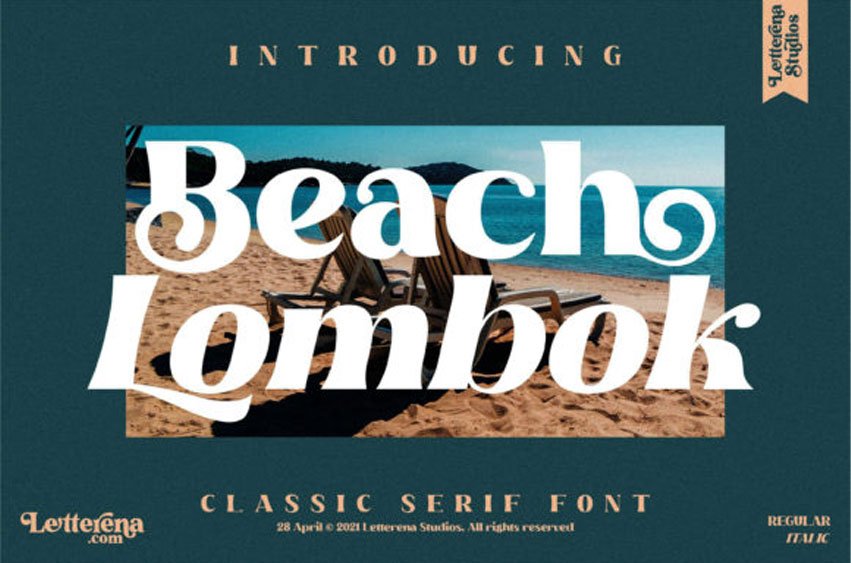
Beach Lombok Font is a cool, thick lettered and classic serif font.
It looks beautiful on a variety of designs requiring a personalized style, such as wedding invitations, thank you cards, weddings, greeting cards, logos and so on.